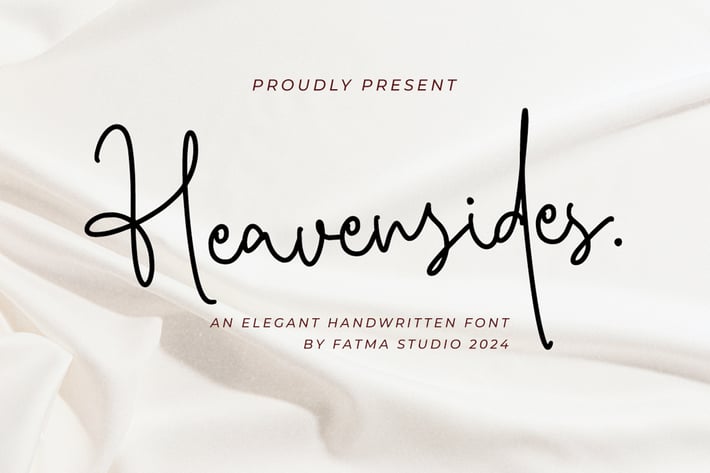
Heavensides - Signature Font
Heavensides simplifies elegance into one truly outstanding script font. It will elevate a wide range of design projects to the highest level, be it branding, headings, wedding designs, invitations, signatures, logos, labels, and much more!
Ligatures, Swash, Alternates